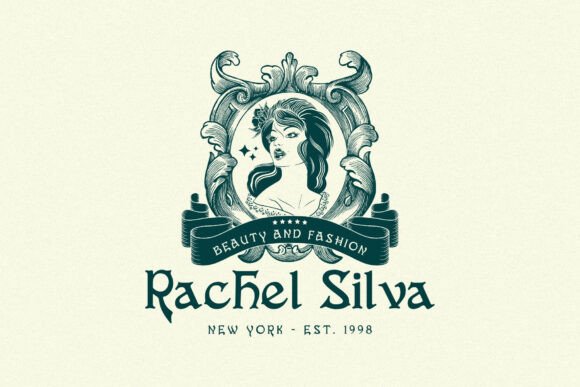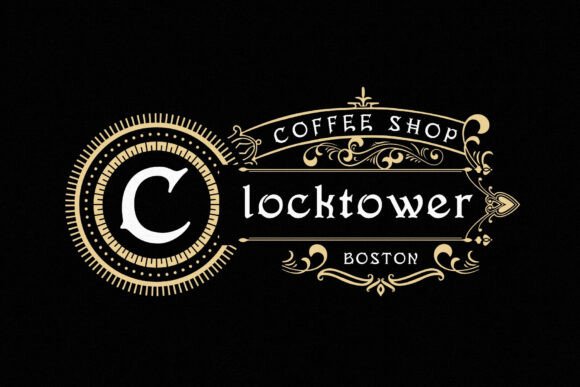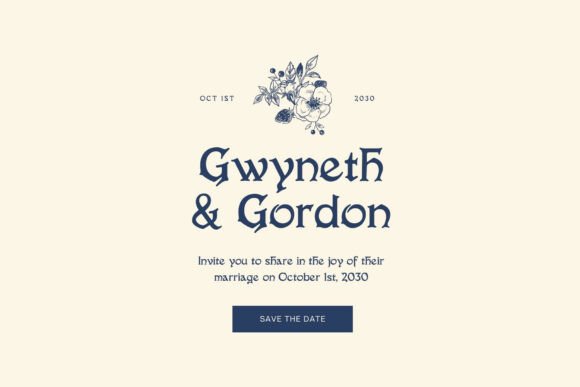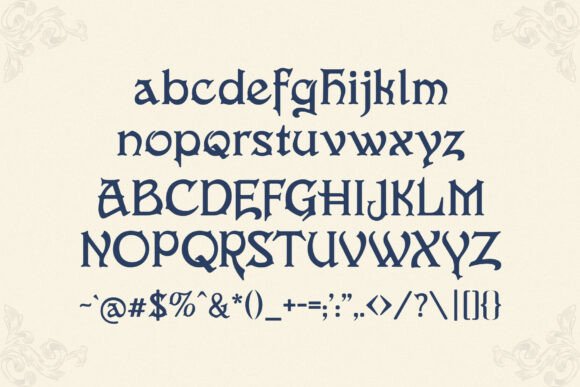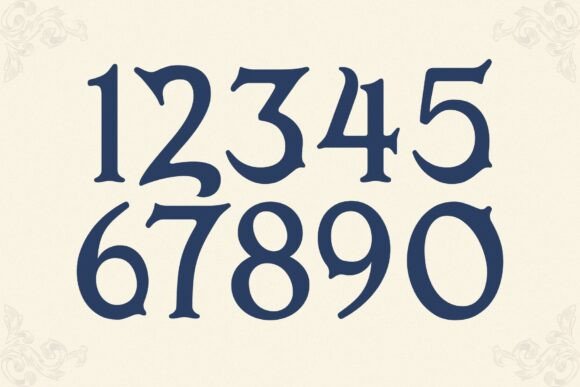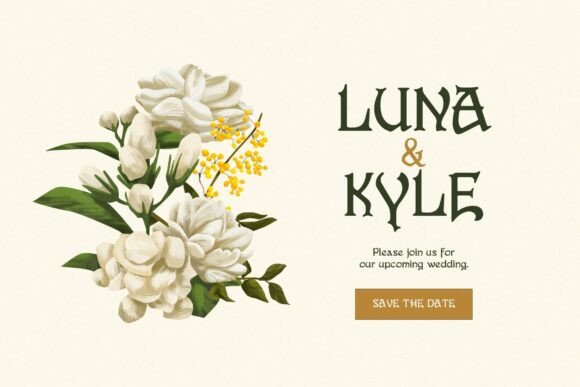
Introduction to Evarose Font
Step into the elegance of the past with Evarose, a stunningly refined typeface inspired by the intricate charm and ornate craftsmanship of the Victorian era.
Every curve, serif, and detail of this typeface is a love letter to the 19th century, painstakingly researched and designed to echo the typography used in antique posters, romantic letters, and regal signage Evarose isnโt just a font; itโs a timeless experience.
Key Features of Evarose Font